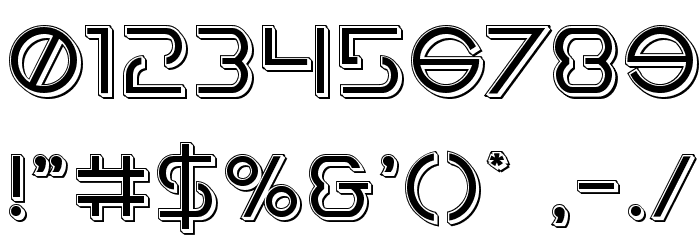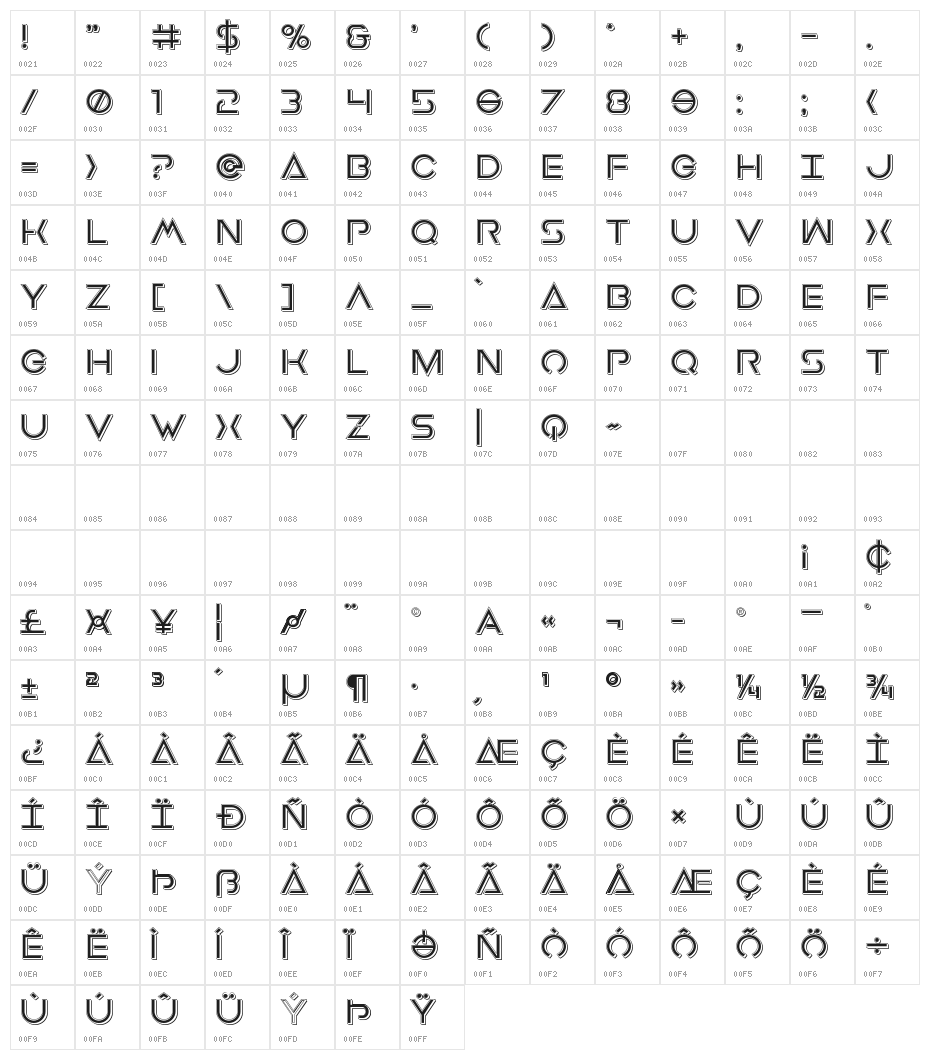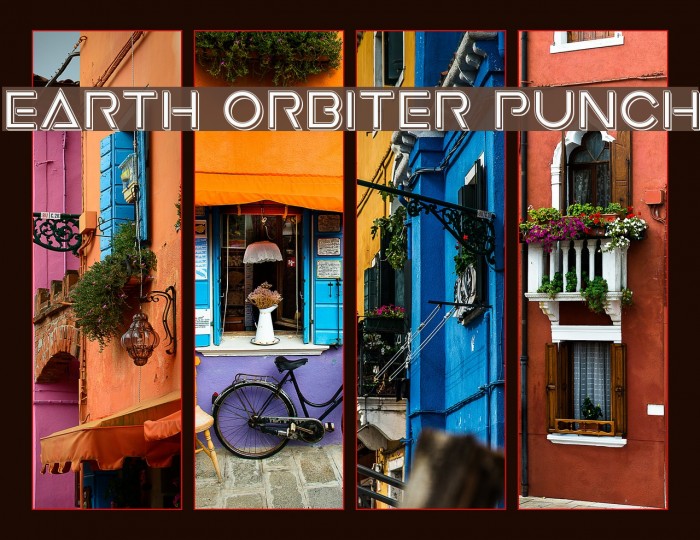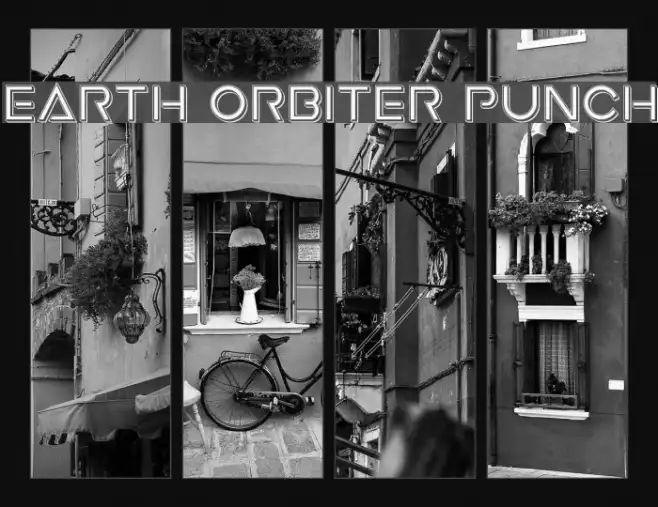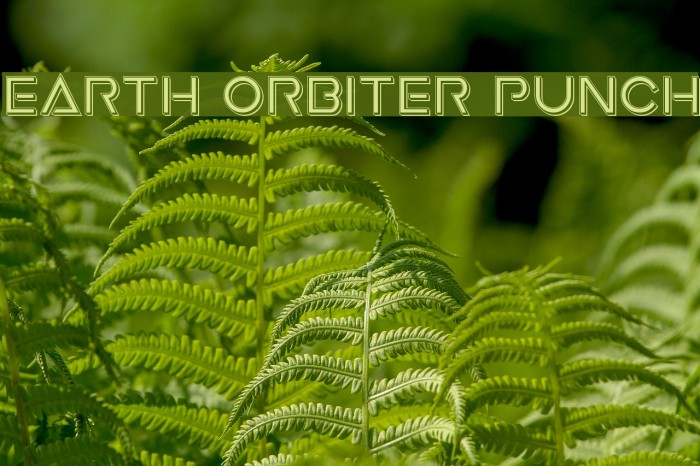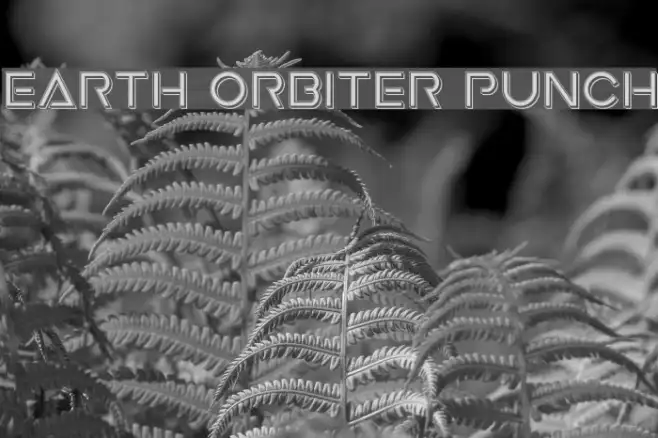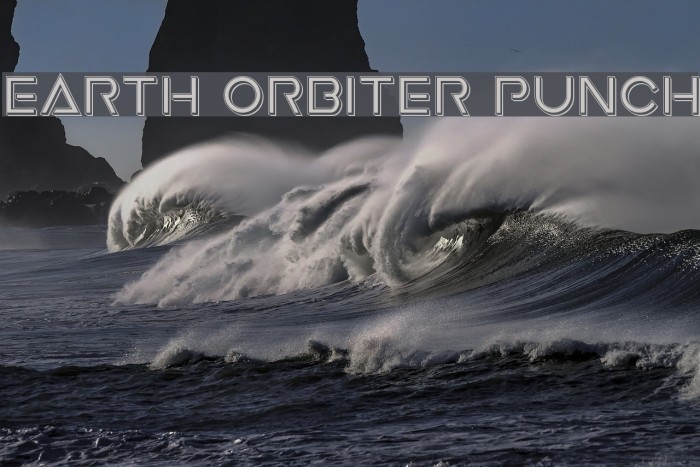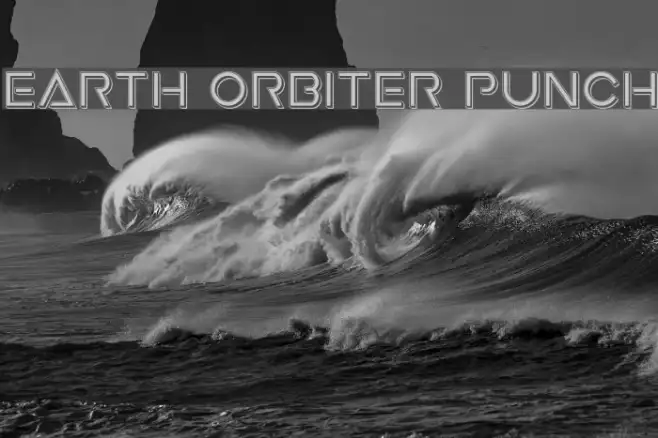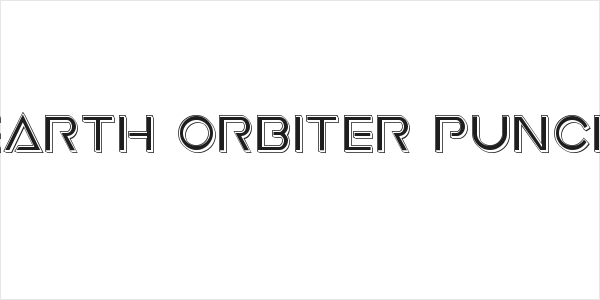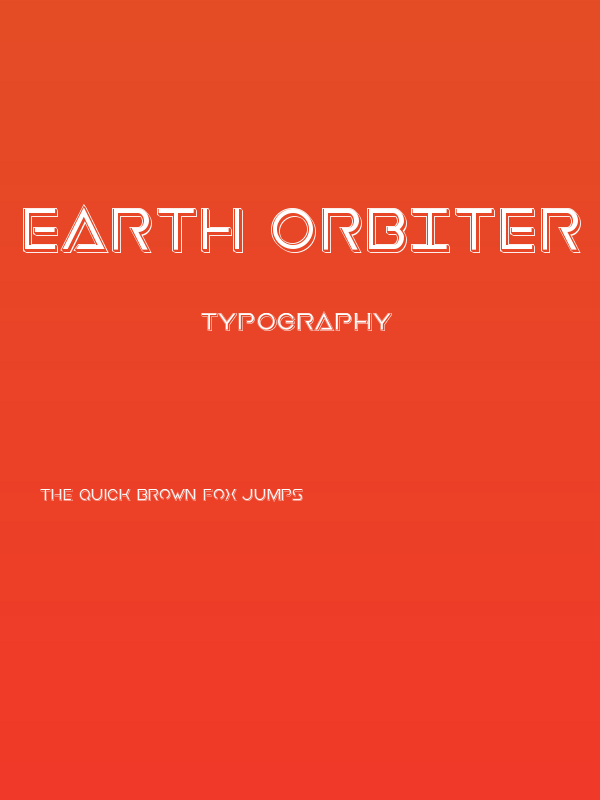
Earth Orbiter Punch Font
Earth Orbiter Punch Description
This font features a futuristic and geometric design with a distinct double-line style that creates a sense of depth and dimension. The characters are bold and angular, with sharp edges and a consistent stroke width. The uppercase and lowercase letters maintain a uniform appearance, while the numerals and special characters complement the overall aesthetic. The font's unique style makes it suitable for projects that require a modern and technological feel, such as sci-fi themes, digital interfaces, or branding for tech companies. Its clean lines and structured form ensure readability while adding a dynamic visual interest.
| Proposed Projects | Ideal for sci-fi themes, digital interfaces, tech branding, and modern design projects. |